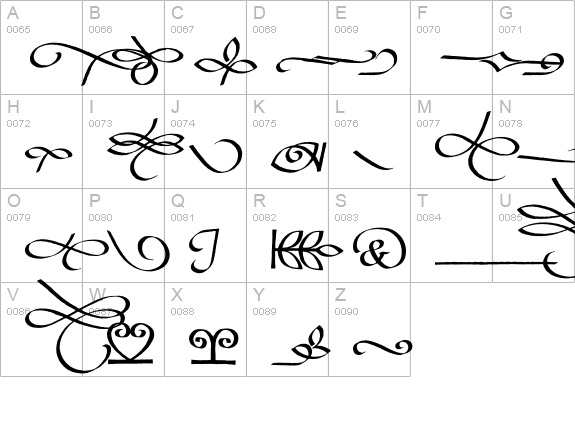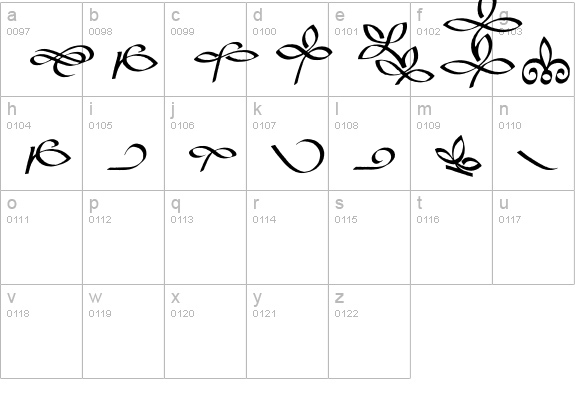
BibleScriptEF-Flourishes font is a beautifully crafted typeface that exudes elegance and sophistication. With its intricate swirls and decorative elements, this font adds a touch of grace to any design project. Whether you're creating wedding invitations, greeting cards, or elegant branding materials, BibleScriptEF-Flourishes font is sure to make a stunning impression. The best part? This exquisite font is available for free download at FontsMarket.com. Now you can elevate your designs with this premium quality typeface without breaking the bank. Don't miss out on the opportunity to add a touch of luxury to your projects with BibleScriptEF-Flourishes font - download it for free today!